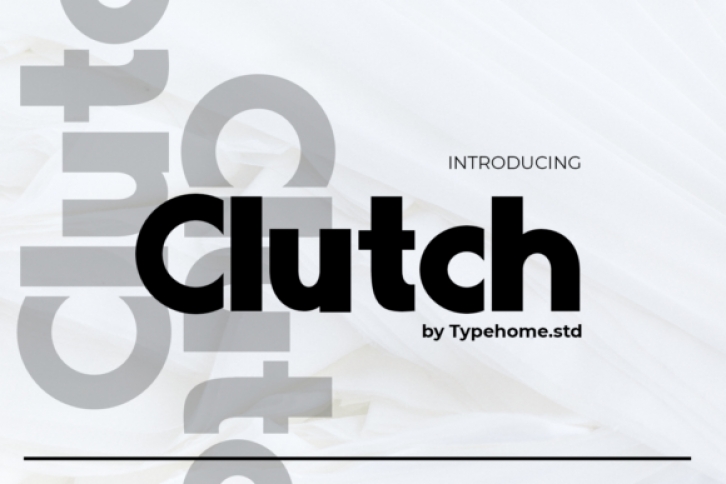
Clutch is a simple and thick lettered display font. Simple but with a strong visual effect, this font will instantly make your creation more appealing than any others. Add it confidently to your projects, and you will love the results.